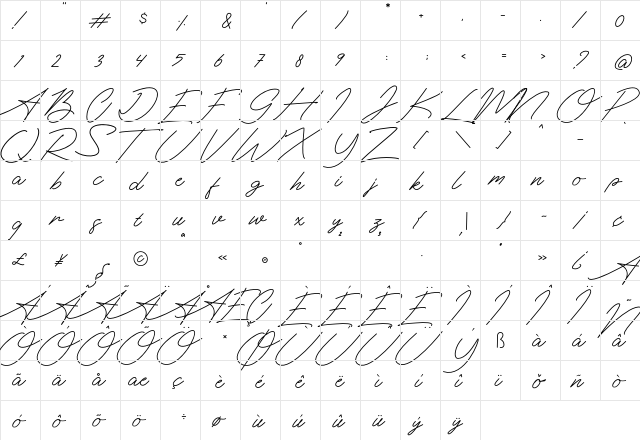
The Essential Regular
| Designer | Earlyfair Studio / Fahmi |
Design Context for The Essential Typeface
The Essential is a composed and adaptable typeface that performs quietly and consistently across a wide range of design contexts.